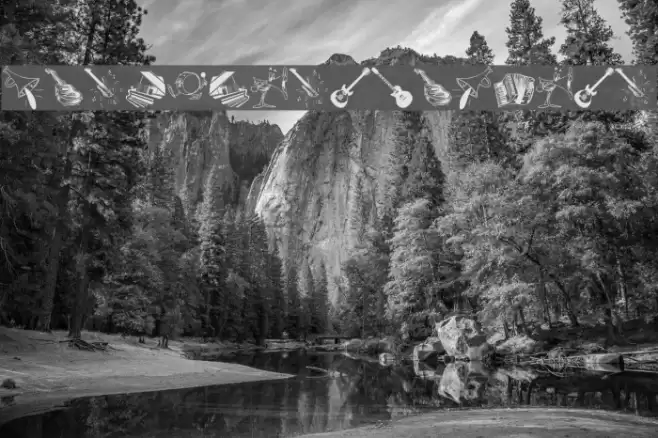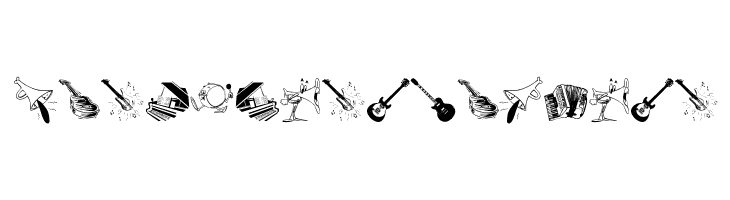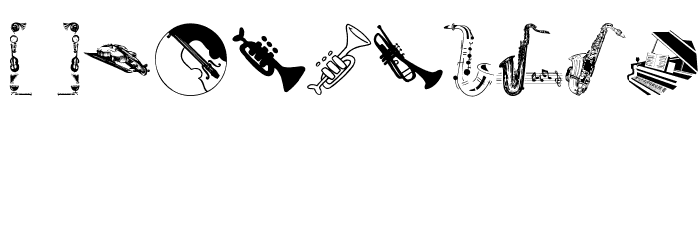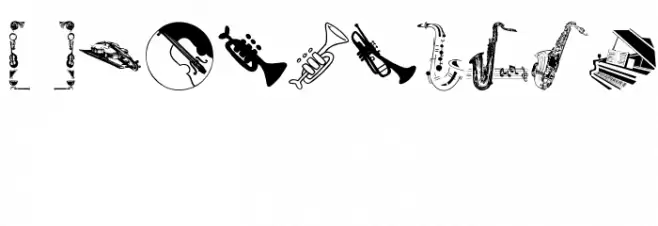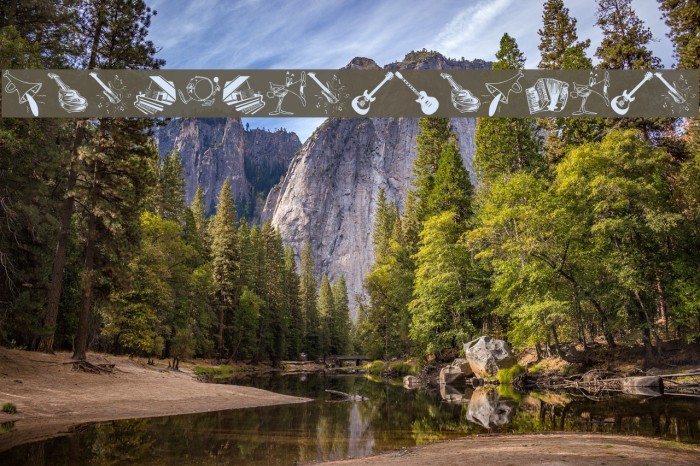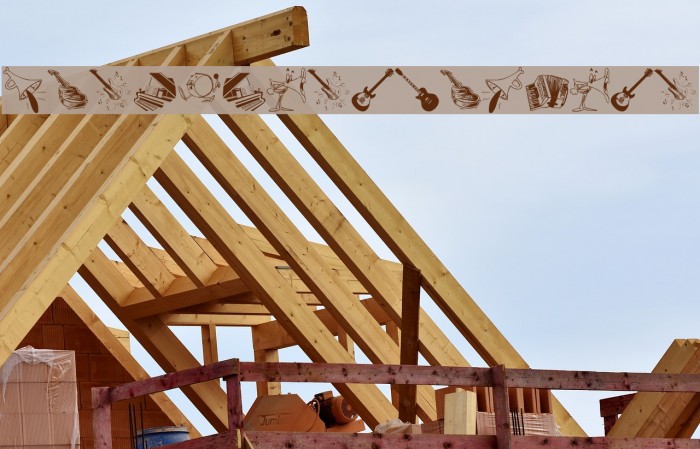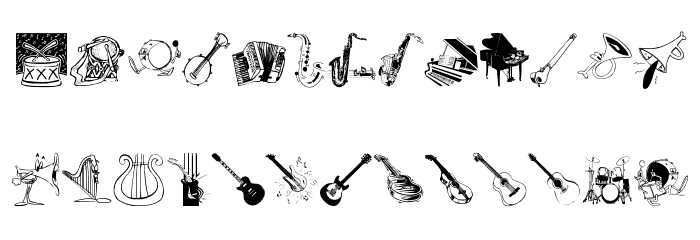
MusicInstruments Font
MusicInstruments Description
A decorative display font where each character is represented by a detailed illustration of a musical instrument or related object, with high visual complexity and playful, hand-drawn linework. The glyphs are highly pictorial and not traditional letterforms.
Illustrative font with each character as a unique musical instrument drawing from Uncategorized fonts.
- Proposed Projects: Music event posters, children's educational materials, themed invitations, album covers, creative branding for music-related businesses.
- Overall Style: Decorative, Playful, Thematic
- Use Case: Logos, Headlines, Posters, Themed graphics